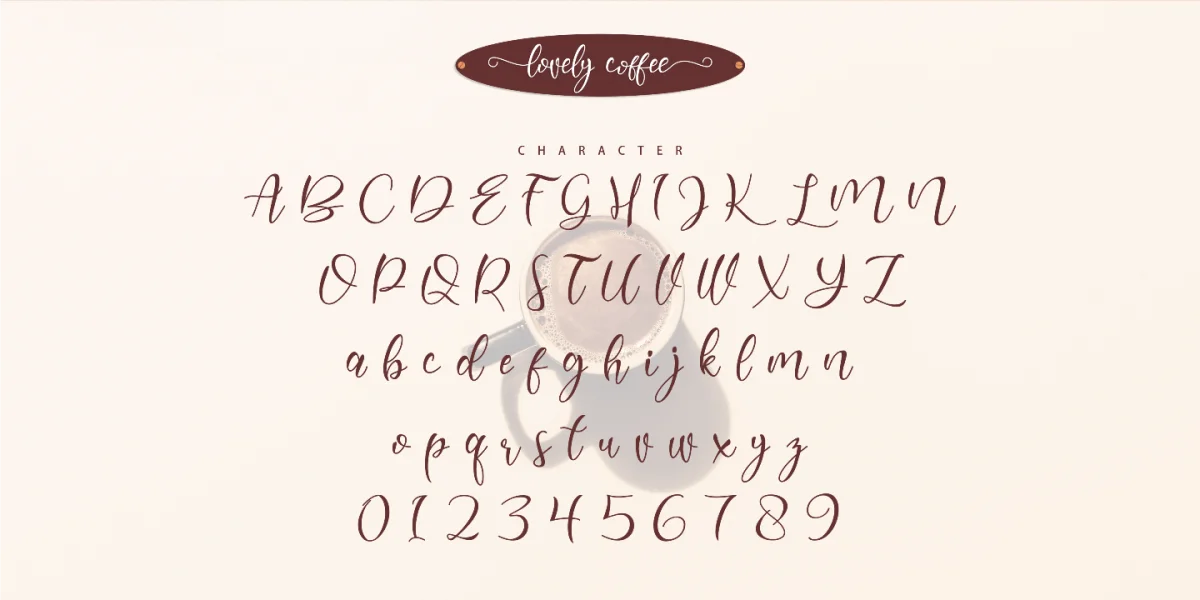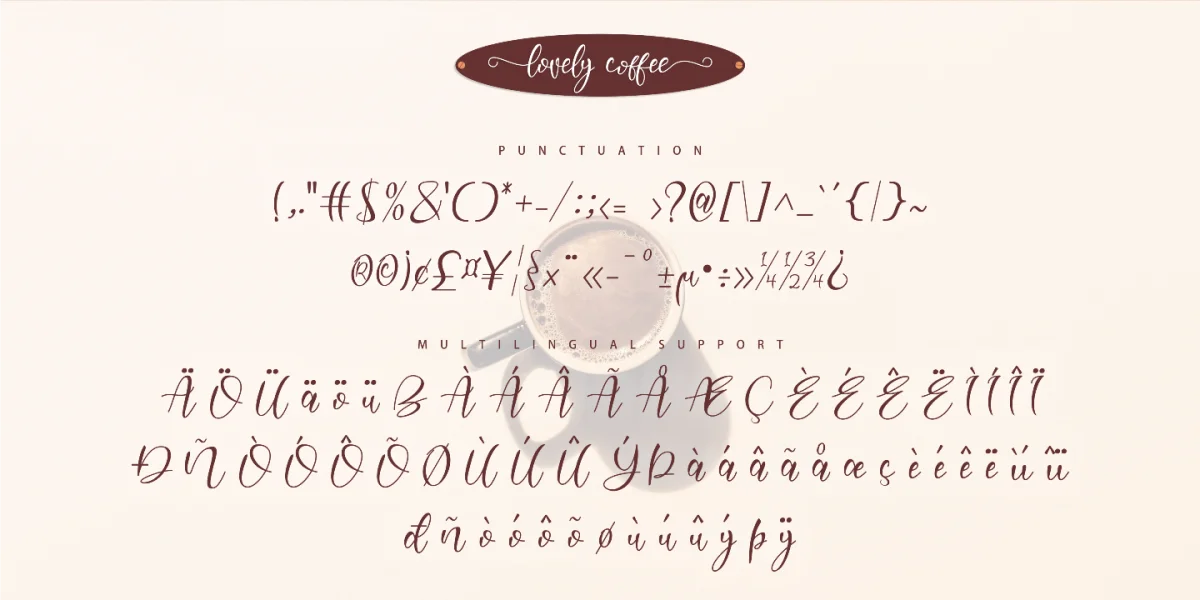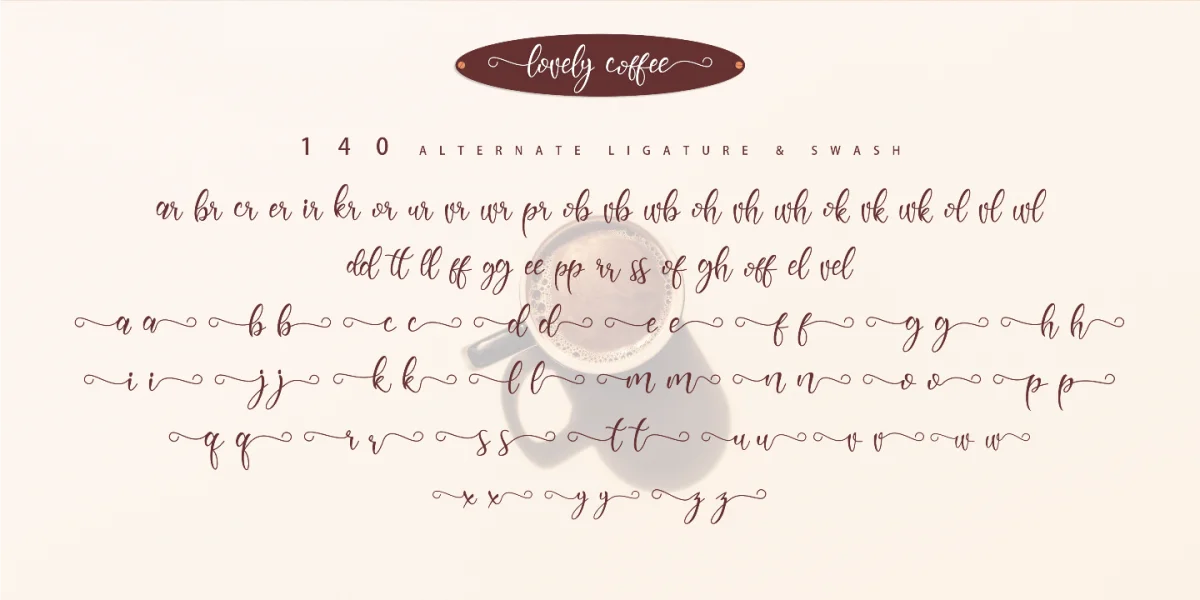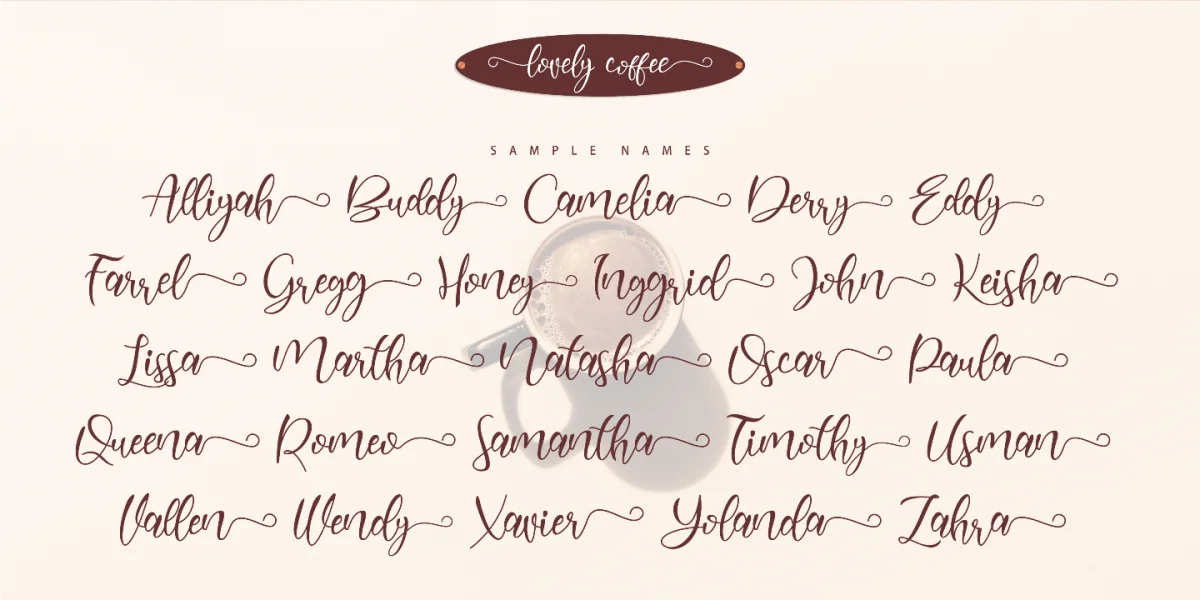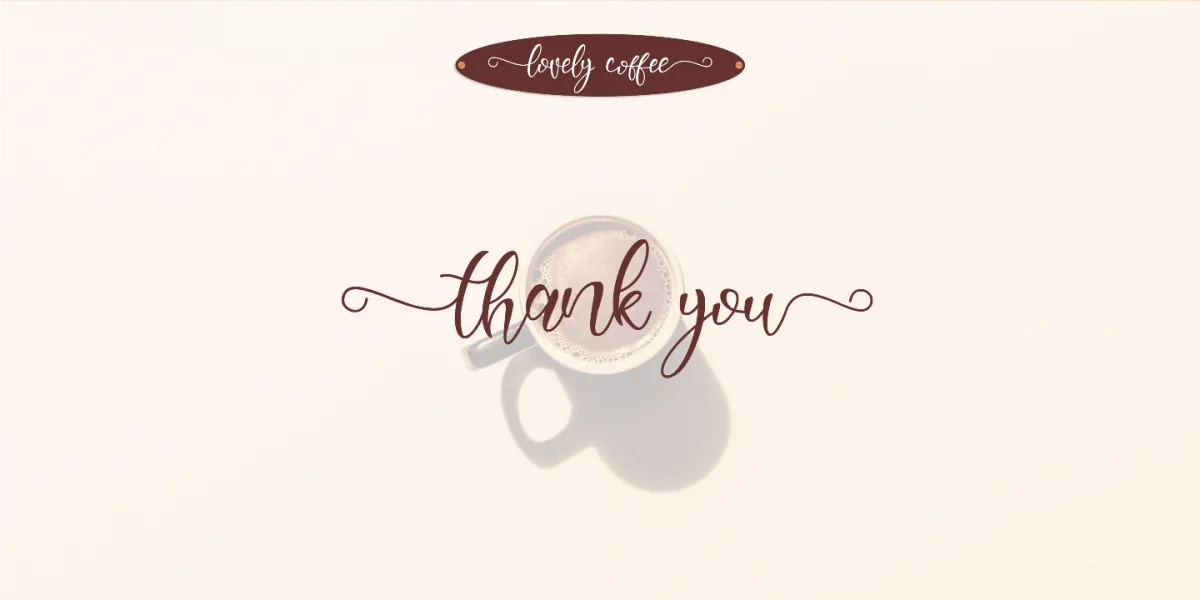
Lovely Coffee simplifies elegance into one truly outstanding handwritten font. A new font looks with a relaxed feel in handwriting style, it maintains its classy calligraphic influences while feeling contemporary and fresh. Perfect for your creative projects this season.
I created the Lovely Coffee font in a unique and very easy way to get curly swash & ligature. Hopefully, that way can help and speed up your time.
I use the ligature feature to make curly swashes in front of letters and behind letters in words. You can access it by using double asterisk (**) characters that are typed before the letters or after the letters to get a swash display.
For example, for the letter a, type a for front swash or a for back swash.